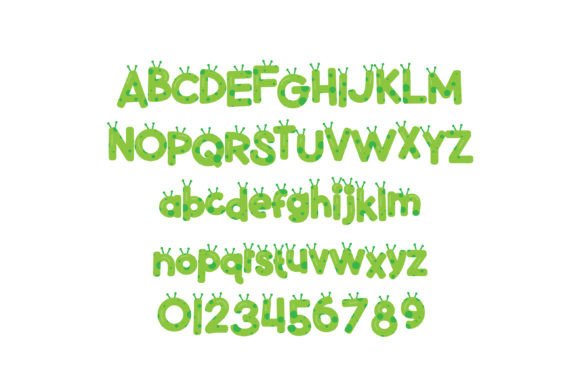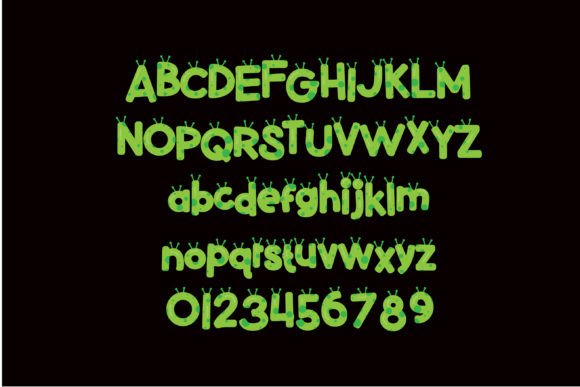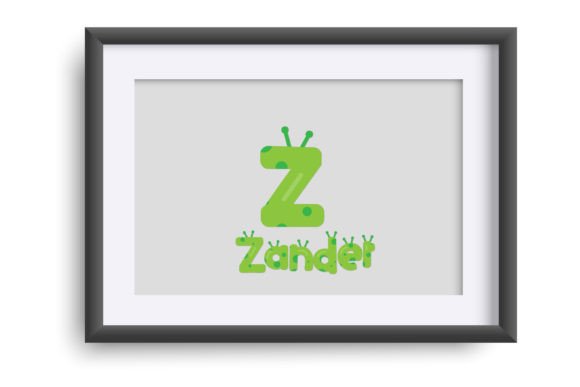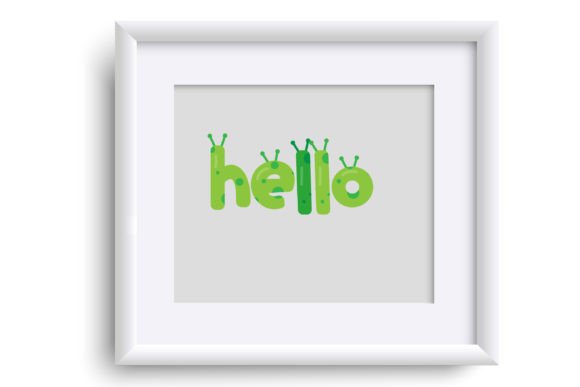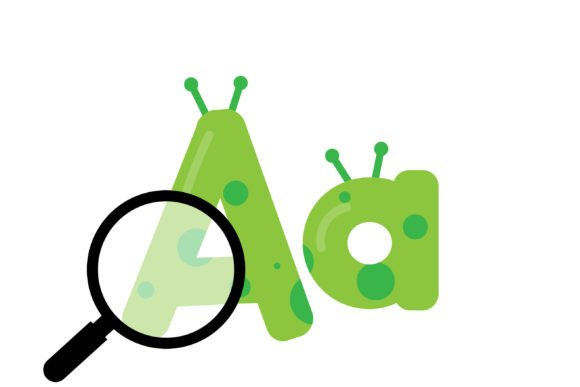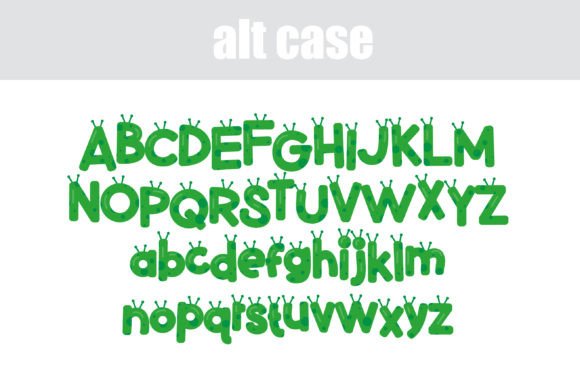
Introducing the Alien Font: A Fun and Colorful Addition to Your Design Arsenal
Are you tired of using the same old fonts for your designs? Look no further! The Alien Font is a vibrant and playful full-color font that is sure to add a touch of whimsy to your titles, displays, posters, and more. This bubbly sans serif font features a green color scheme with spots and antennae, giving it a fun and extraterrestrial feel.
What Makes the Alien Font Special?
The Alien Font is a OpenType full-color (SVG) font, which means it can be used in programs that support color fonts, such as Silhouette Studio, Adobe products, Quark, and Inkscape. This font features an alt case with additional colors that can be accessed through your system or Silhouette’s glyph map, giving you even more creative options.
The Alien Font is perfect for designers and crafters who want to add a playful touch to their work. Here are a few tips for using this font:
- Use it for titles and headings to add a pop of color and whimsy to your designs.
- Experiment with different colors and combinations to create unique and eye-catching designs.
- Pair it with other fun and playful fonts to create a cohesive and engaging design.
- Don’t be afraid to get creative and try new things – the Alien Font is all about having fun and exploring new possibilities!
The Alien Font is a fun and colorful addition to any designer’s arsenal. With its bubbly sans serif design and full-color capabilities, it’s perfect for adding a touch of whimsy to your titles, displays, posters, and more. Whether you’re a designer, crafter, or simply someone who loves to have fun with fonts, the Alien Font is sure to delight. So why not give it a try and see what kind of creative possibilities you can come up with?